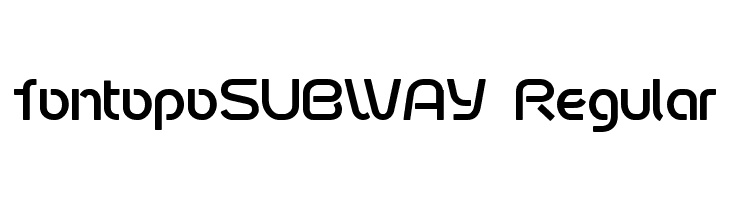
( Yoshihisa Nakai - fontopo.com )
A modern, geometric font with rounded edges and a cohesive, bold appearance.
( Yoshihisa Nakai - fontopo.com )
A bold, geometric font with a modern, industrial aesthetic.
( Yoshihisa Nakai - fontopo.com )
A clean, modern sans-serif typeface with geometric letterforms.
( Yoshihisa Nakai - fontopo.com )
A bold, rounded font with a modern and playful style.